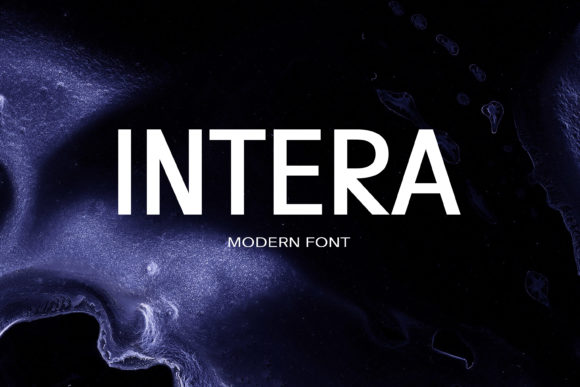
Feast your eyes on Intera, a spectacular sans serif font that exudes a touch of nostalgia, reminiscent of meticulously hand-painted signage. Step into a world where heritage meets modernity as Intera captivates you with its timeless allure.
With Intera, every word you type carries weight and character. Its bold, confident strokes command attention, while its subtle curves add a hint of playfulness. This font is not just a collection of letters; it's an expression of artistry, a tribute to the beauty of traditional sign painting.
Designed with meticulous attention to detail by DmdDesignsStoreArt, Intera is a masterpiece that transcends time. Its sans serif design strikes a perfect balance between formal and informal, making it suitable for a wide range of projects. Whether you're a designer, a marketer, or simply a creative soul seeking a captivating font, Intera is your perfect match.
Unleash your creativity and embark on a typographic journey like no other. Intera's versatility knows no bounds, effortlessly adapting to logos, branding, posters, packaging, and even web design. Its strong personality shines through, adding a touch of sophistication to any project it graces.
With Intera, you'll discover a font that speaks volumes. Its bold, commanding presence grabs attention, while its elegant curves and subtle details leave a lasting impression. Experience the charm of classic sign painting, blended seamlessly with contemporary design aesthetics.
Don't settle for ordinary fonts; embrace the extraordinary with Intera. Its timeless beauty and captivating charm will elevate your projects to new heights. Join the ranks of those who appreciate the art of typography and let Intera's magnetic presence captivate your audience.